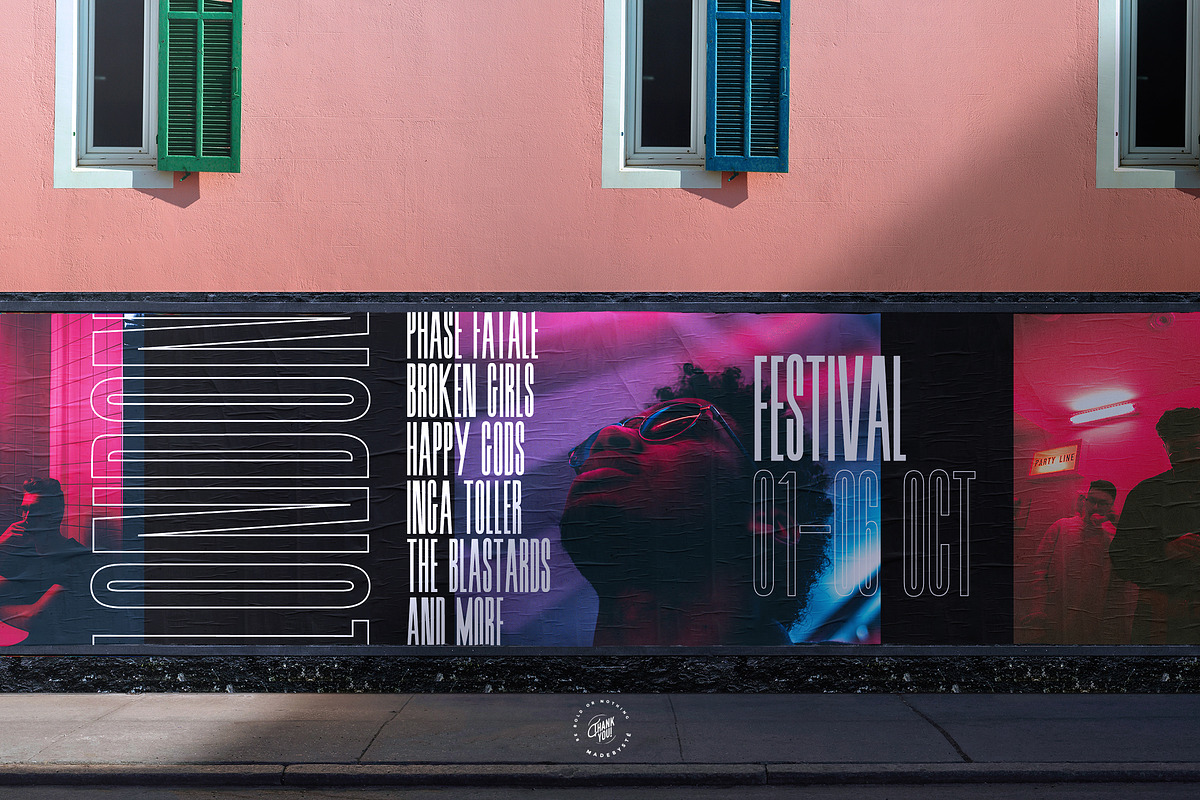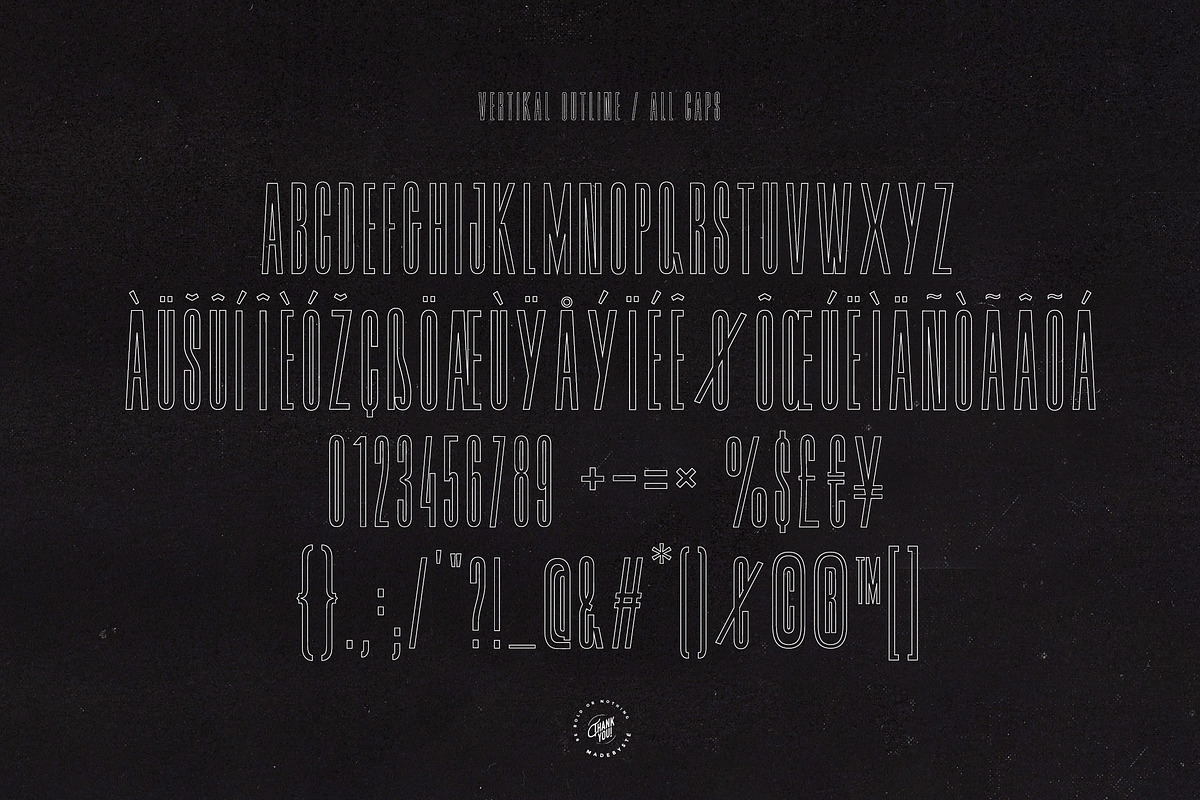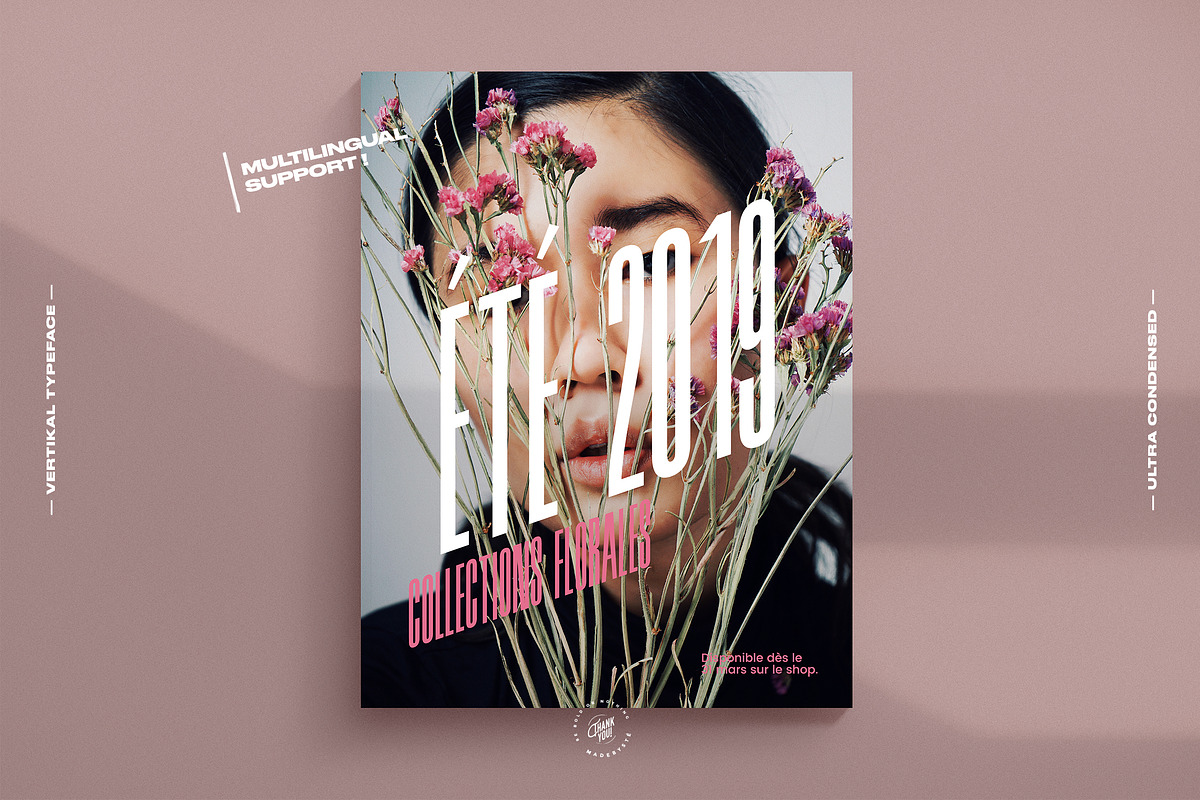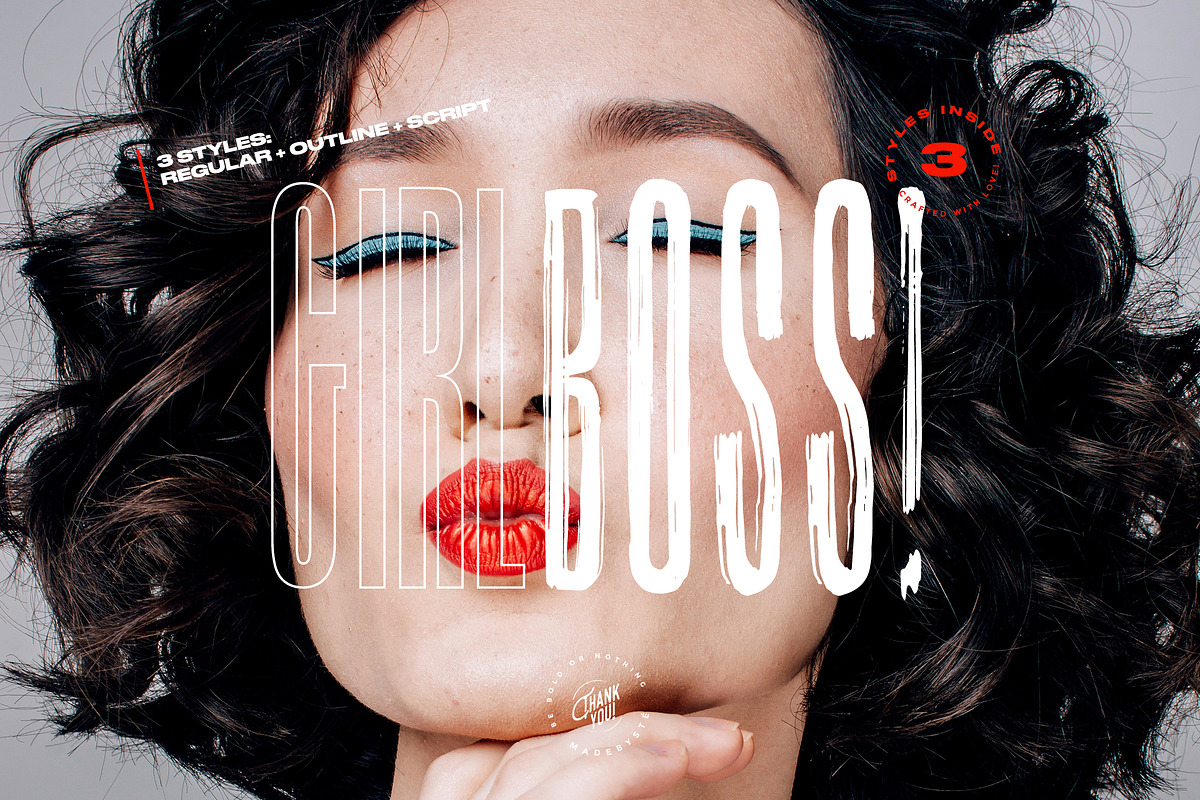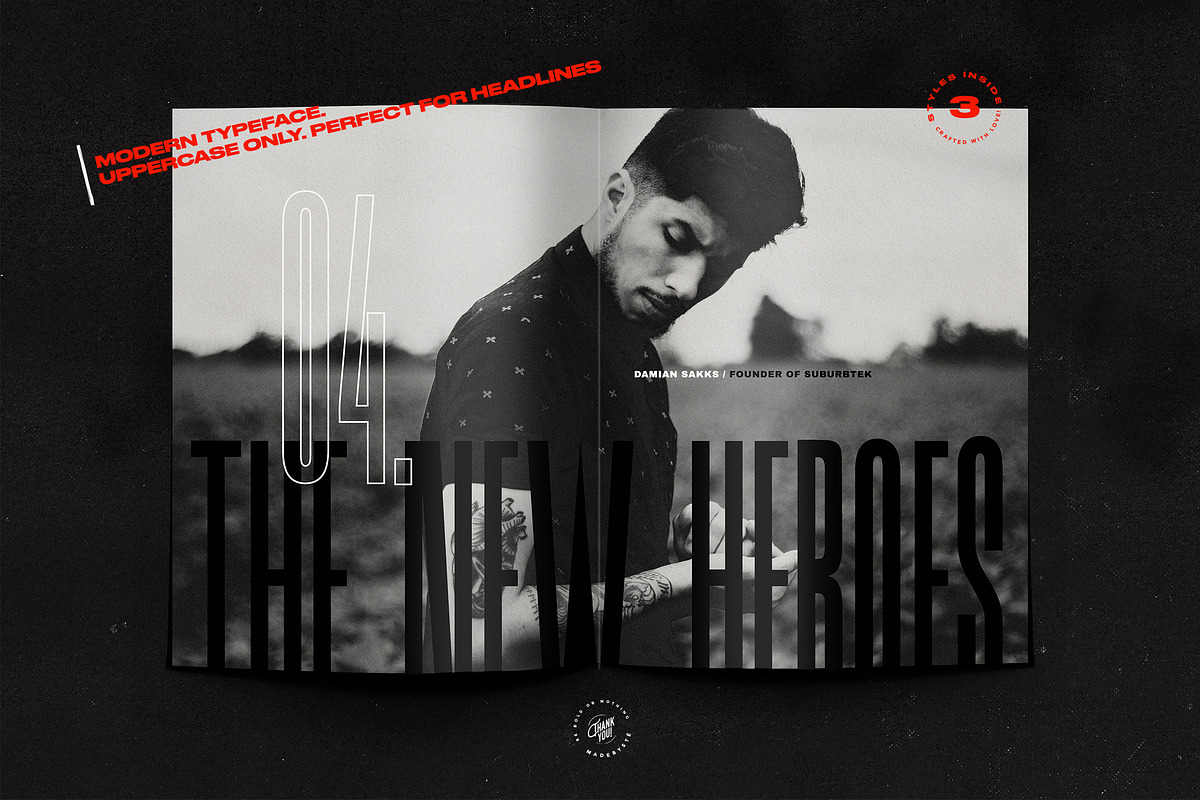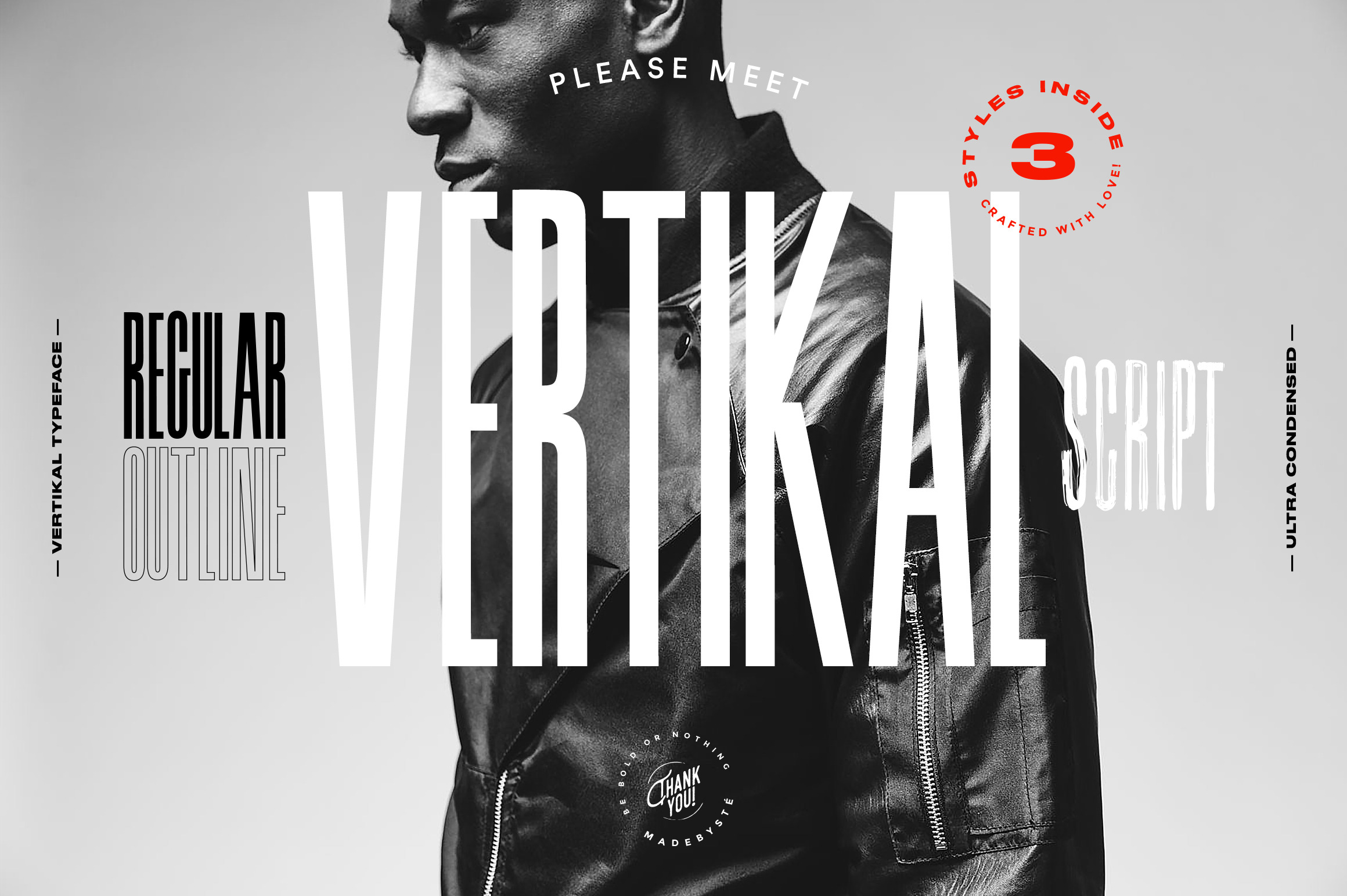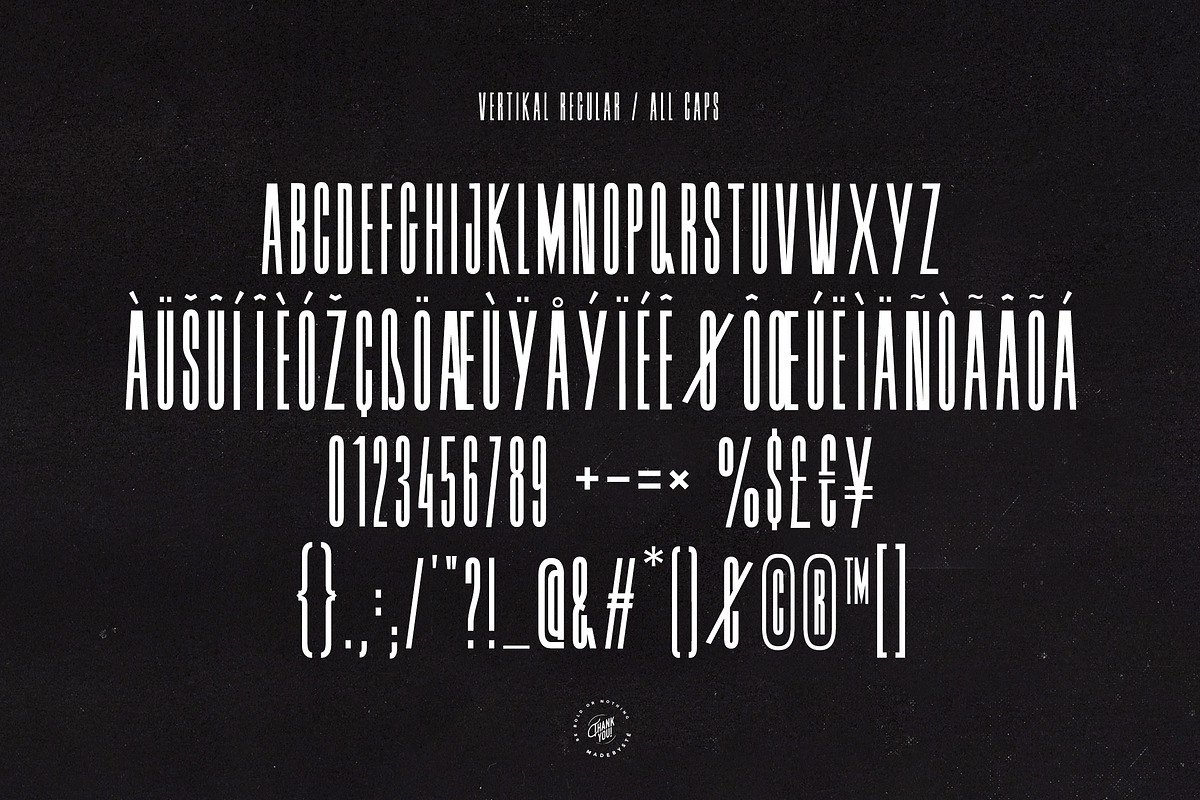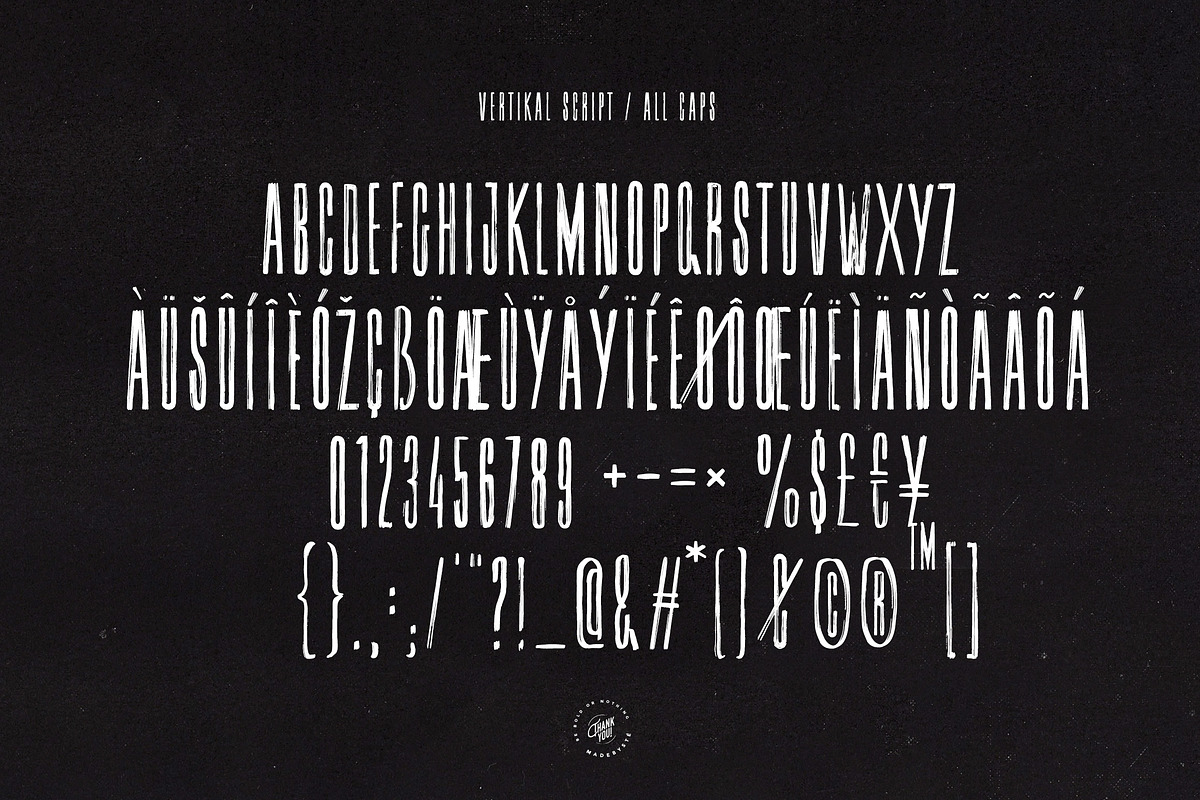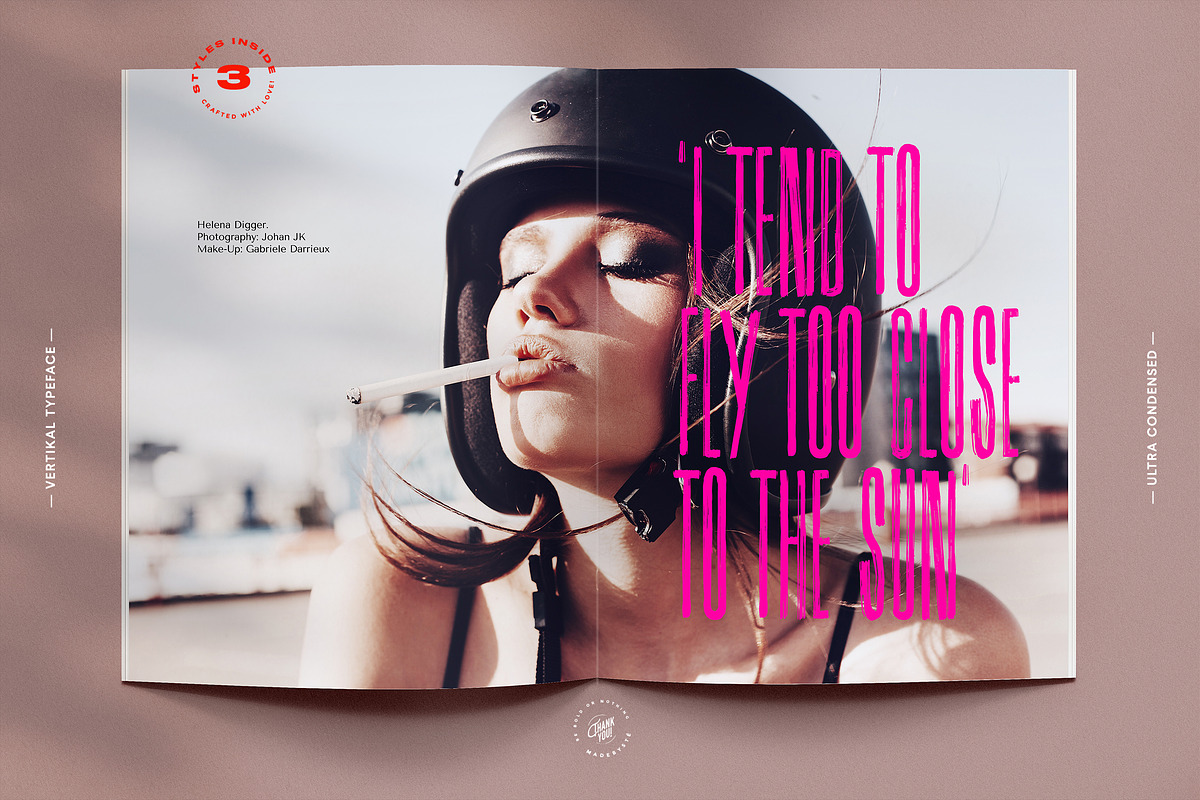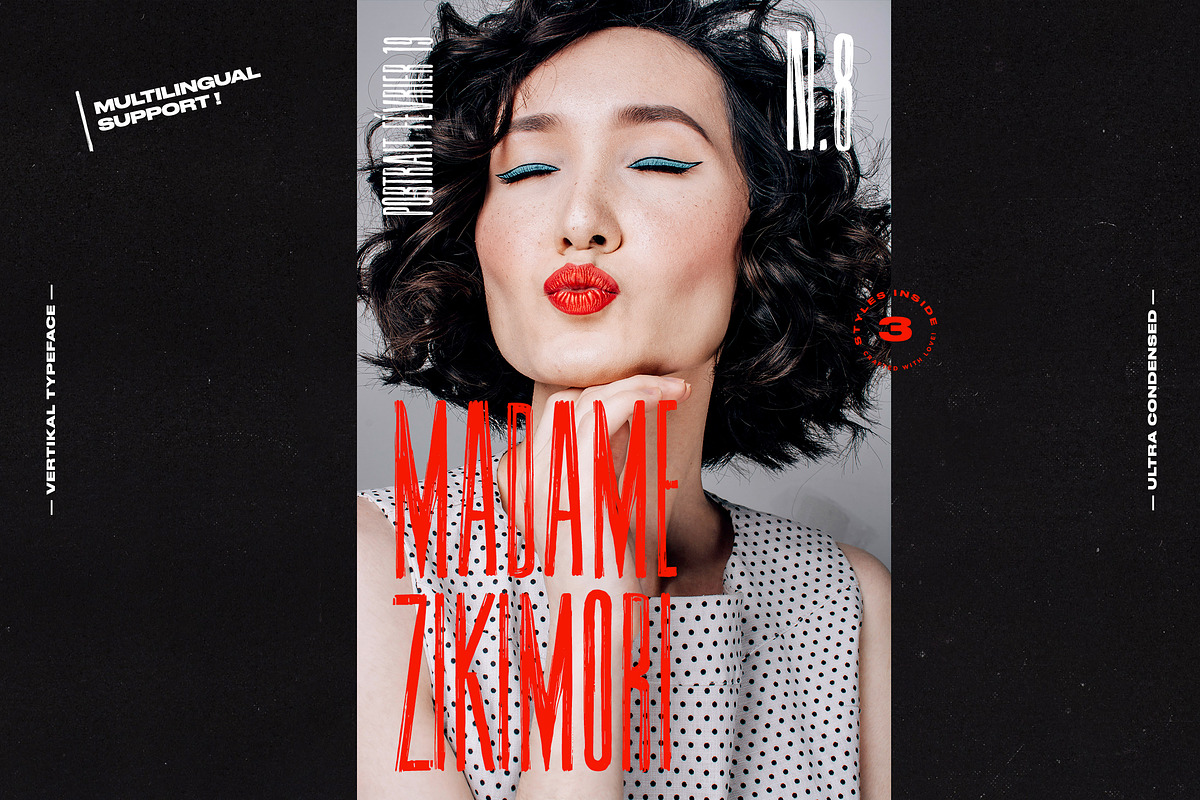
VERTIKAL — 3 CONDENSED FONTS
Impactful / Memorable / Modern / Ultra Condensed — All Caps in 3 Styles!
Introducing: Vertikal — A tall condensed sans serif font coming in 3 styles.
If you are looking for letters with attitude, Vertikal is the perfect fit. It's a memorable, strong and elegant typeface. You can mix and match the Outline and the Regular style to create something very fresh and modern. The Brush Script is the bad boy of the collection but still very classy.
This collection is perfect for headlines, quotes, magazine covers, editorial design, print posters, signage, window shop design, and much more.
- Vertikal Regular
- Vertikal Outline
- Vertikal Brush Script